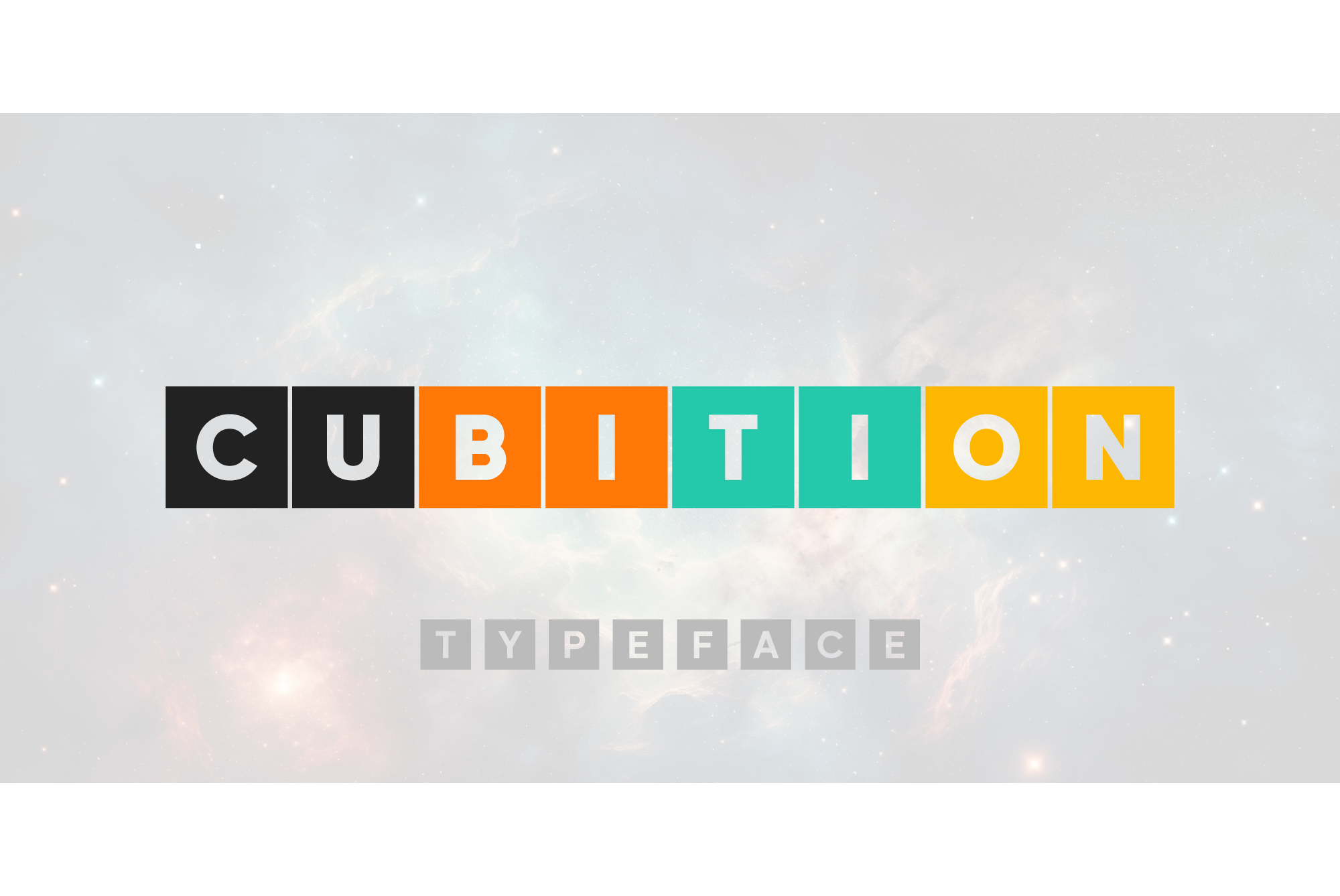
Cubition Font
Cubition Complete Family
Cubition font family was created on the base Everest Pro sans-serif typeface. It is brilliantly suited for graphic design and display use and perfect for brand identity, magazines, newspapers, books, websites, and advertising.